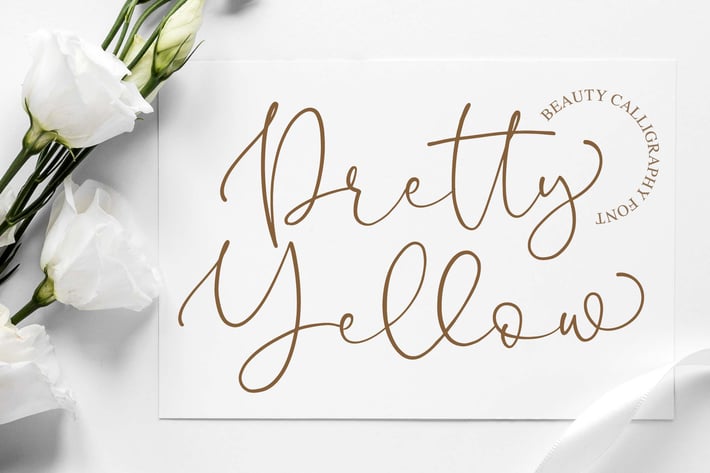
Pretty Yellow Beauty Calligraphy Font
Introducing of our new product the name is Pretty Yellow Beauty Calligraphy Font. Pretty Yellow Signature inspired by modern calligraphy style this font is a fun theme very good for display, wedding, valentine theme, logotype and etc
MULTILINGUAL ACCENT :
ØÆøæ¢ÐŒœÁĂÂÀÄĄÅÃǼĆČÇĈĊĎÉĔĚÊËĖÈĘĞĜĢĠĤÍĬÎÏİÌĮĨĴĶĹĽĻĿŃŇŅÑÓŎÔÖÒŐǾÕŔŘŖŚŠŞŜȘŤŢÚŬÛÜÙŰŲŮŨẂŴẄẀÝŶŸỲŹŽŻáăâäàąåãǽćčçĉċďéĕěêëėèęğĝģġĥíîïìįĩĵķĺľļŀńʼnňņñóŏôöòőǿõŕřŗśšşŝșťţŭûüűùųůũẃŵẅẁýŷÿỳźžż